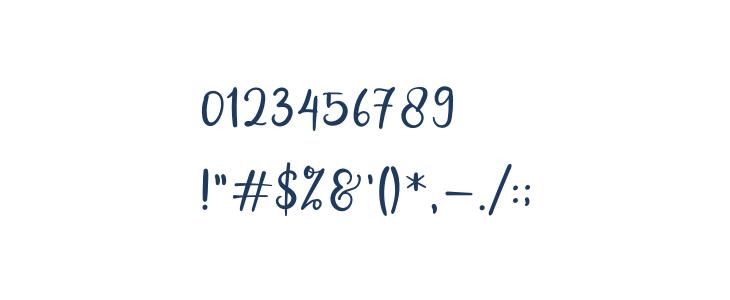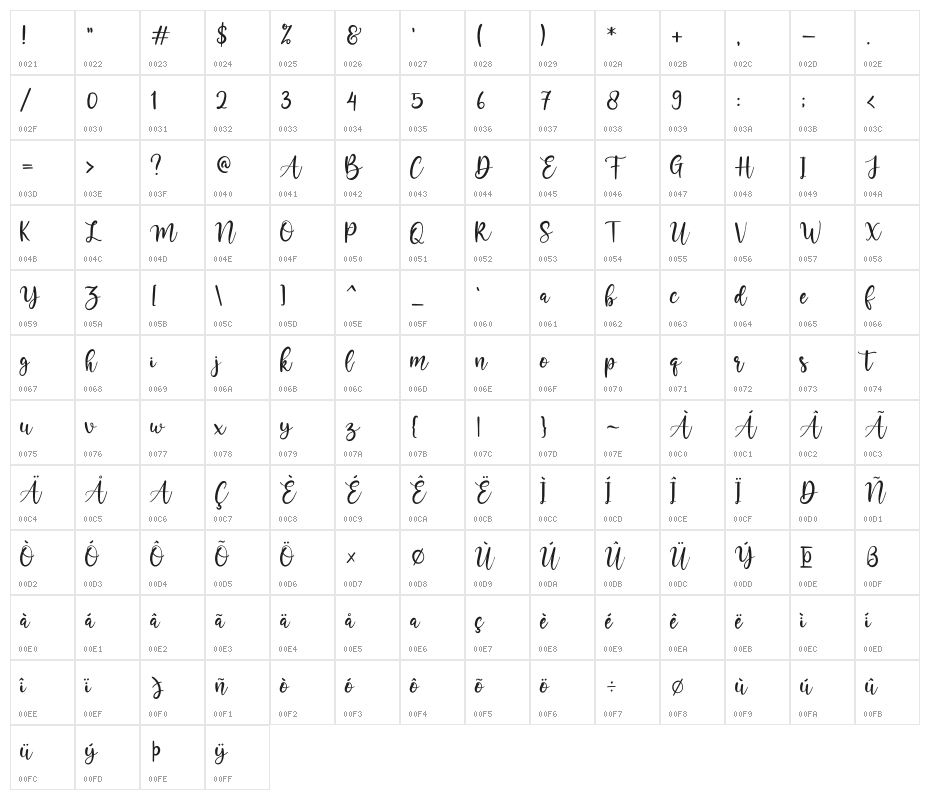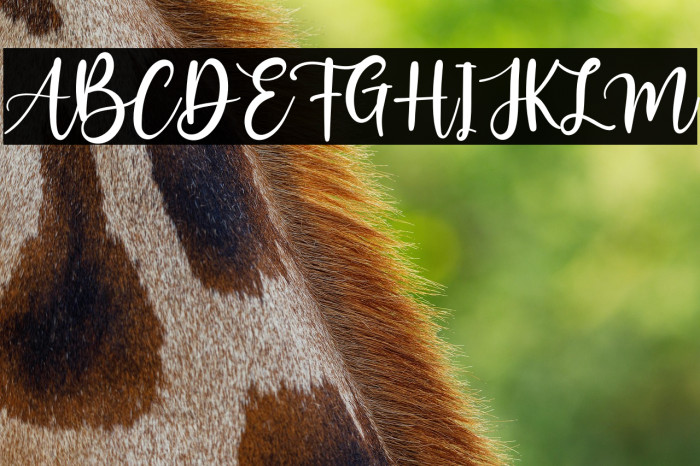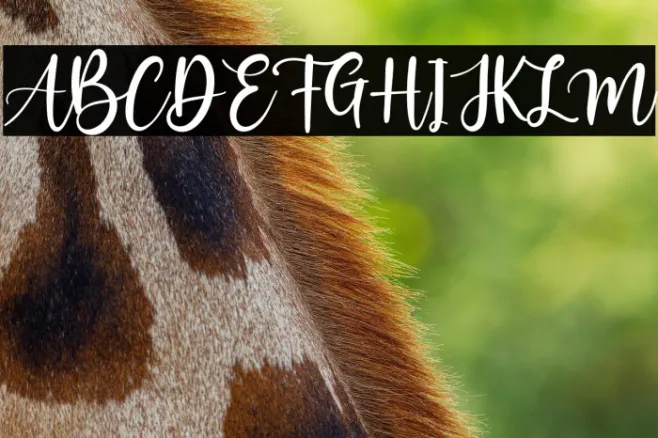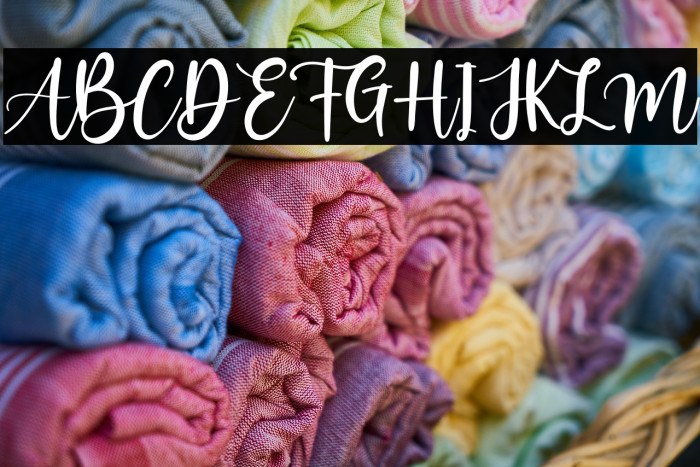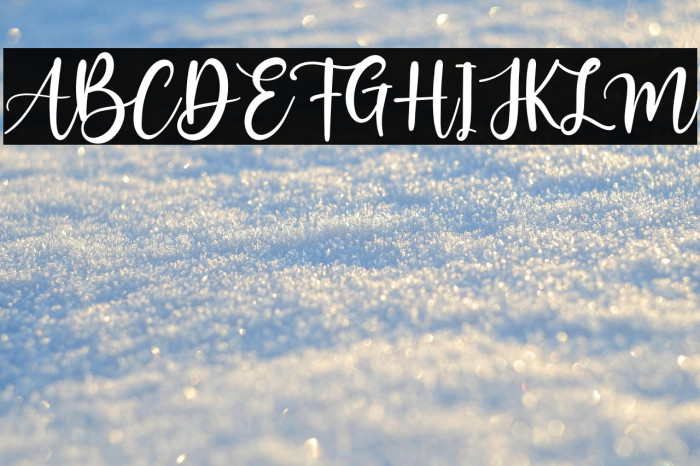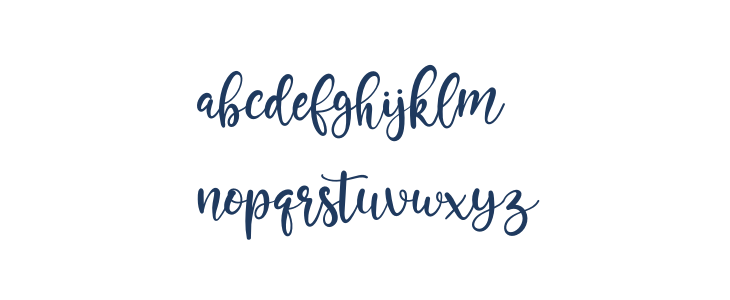
Kayonna Font
Kayonna Description
This font features a flowing, cursive style with elegant loops and swashes, giving it a handwritten appearance. The uppercase letters are particularly ornate, with sweeping lines and a sense of fluidity. The lowercase letters maintain a consistent style, with rounded forms and smooth connections between characters. The numerals are clear and maintain the same decorative flair. Special characters are integrated seamlessly, enhancing the font's cohesive look. This font is ideal for projects that require a personal touch, such as invitations or branding materials.
| Use Case | Logos, Invitations, Personal branding |
| Proposed Projects | Ideal for wedding invitations, greeting cards, logos, and personal branding. |